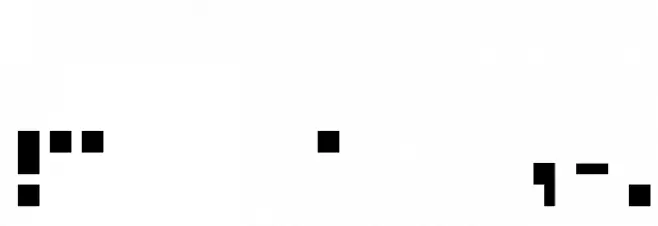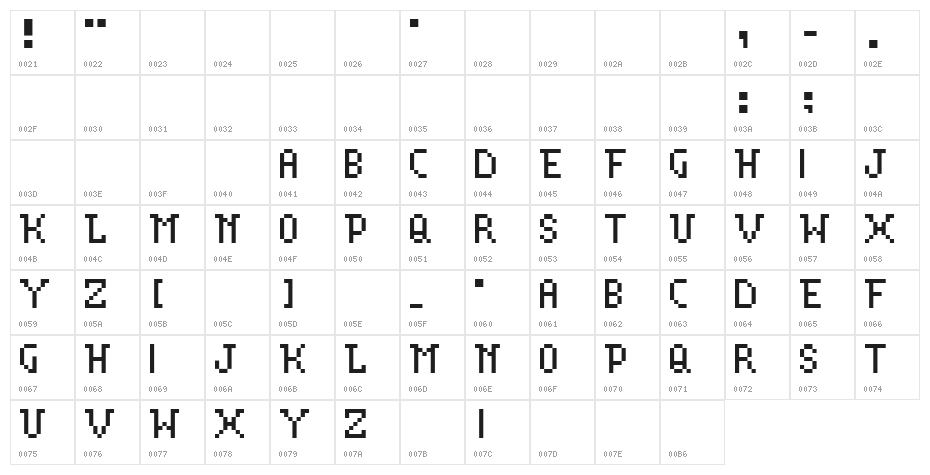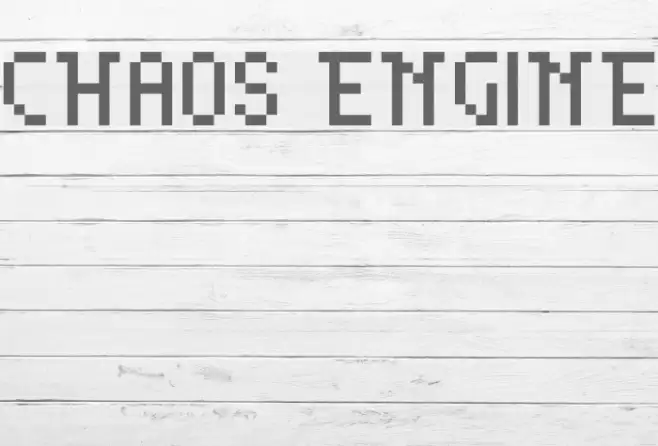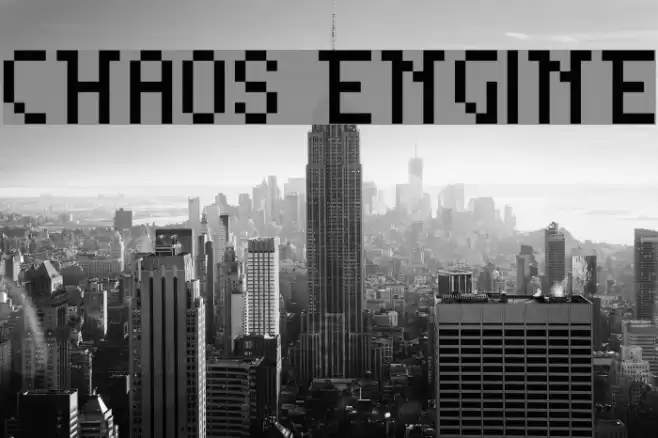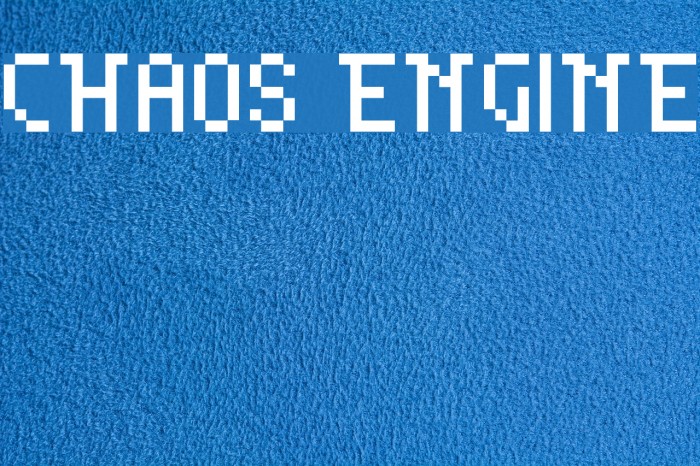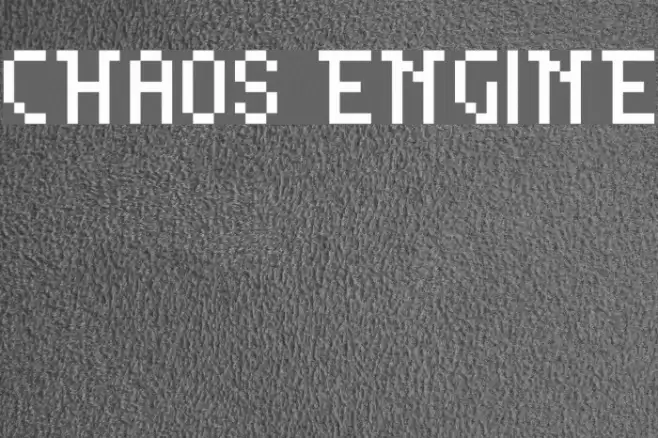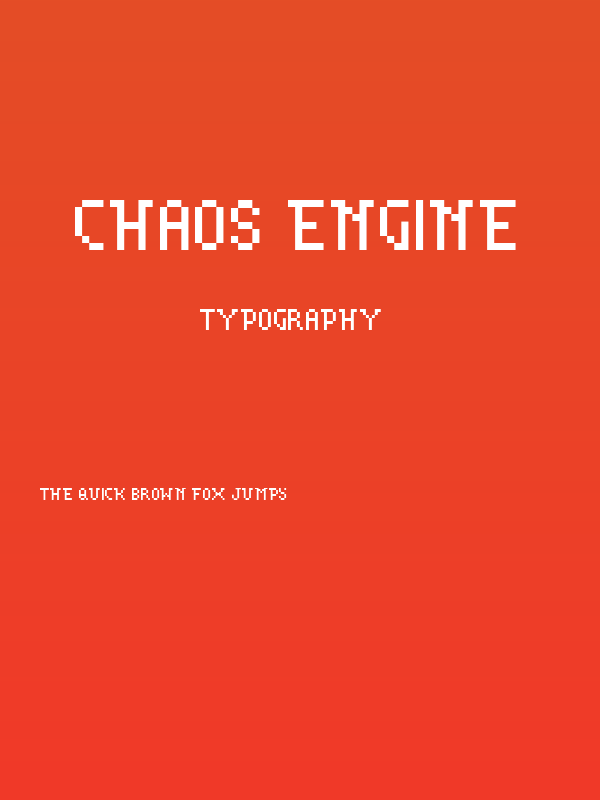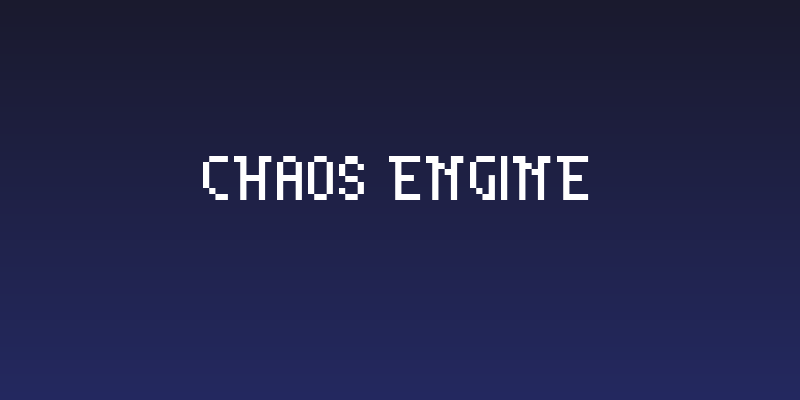
Chaos Engine Font
Chaos Engine Description
This font features a pixelated, blocky style reminiscent of early digital or video game typography. Each character is constructed with a grid-like precision, giving it a distinctly retro and technological feel. The uppercase and lowercase letters maintain a consistent height, emphasizing uniformity and simplicity. The numbers and special characters follow the same design principles, ensuring a cohesive look across all glyphs. This design is particularly effective for projects that aim to evoke nostalgia or a digital aesthetic.
Splintered - www.splintered.co.uk
| Use Case | Logos, Headlines, Digital Art |
| Proposed Projects | Ideal for video game design, retro-themed posters, digital art projects, and any creative work that requires a nostalgic or tech-inspired look. |